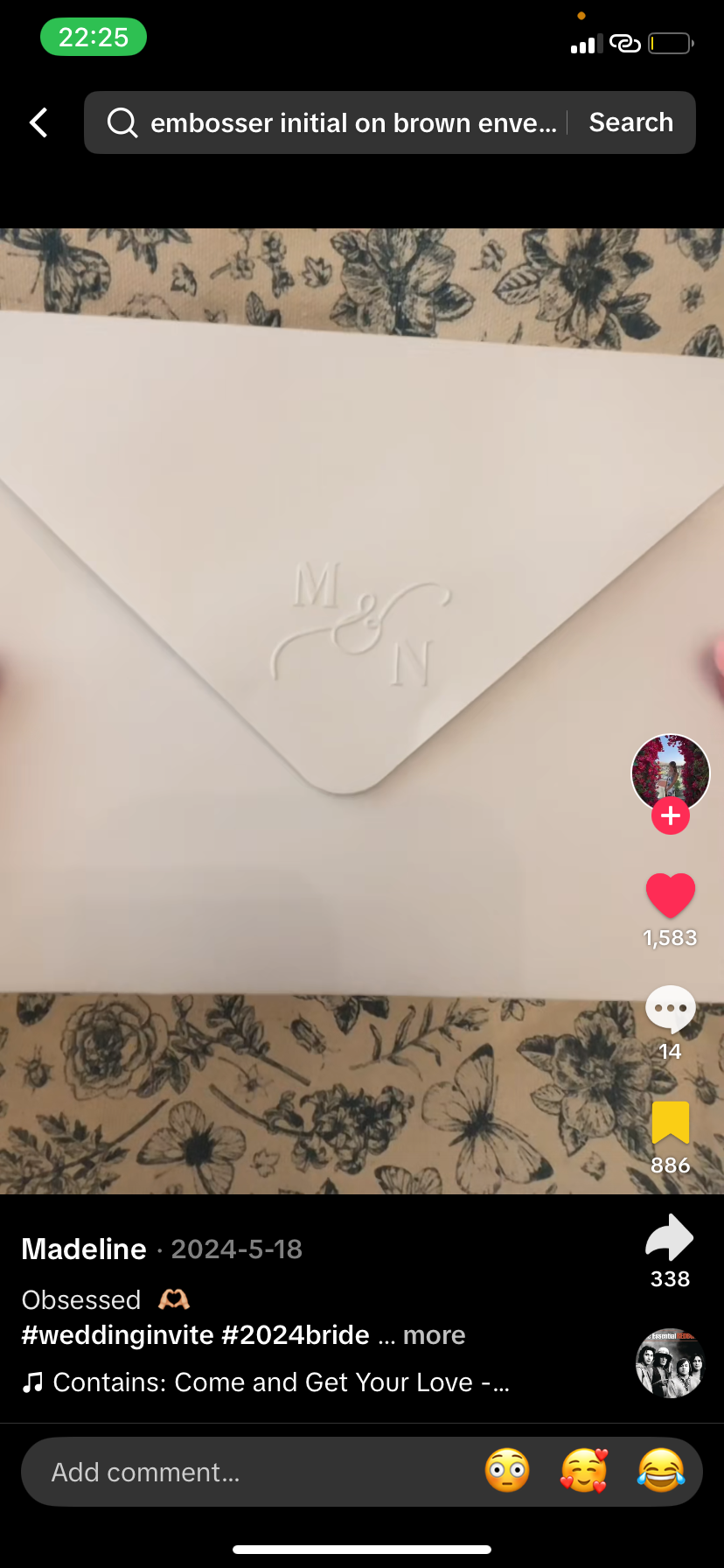
Looking for the font in this Tik Tok video
Looking for this font on this wedding envelope.  The video is from Tik Tok, creators tag is @madelinean. The creator hadn’t specified the name and I really want to use the ‘&’ in a canva design. The link to the Tik Tok is below. I will also attach a screen shot of it. I would like the font name or at least something as flamboyant and elegant as this.IMG_5600.thumb.png.430fc79b06fdb8c9e57f900796cb641a.png
Very difficult to run such a low-contrast image through font matching software.
I’m sorry, but even after redrawing the ampersand, I’ve had no luck IDing it.
This may be due to the fact that it appears to be a special character/alternate of the default ampersand (as indicated by the leading and trailing “tails”)—such alternate characters are rarely included in search databases.
A Google search on “wedding ampersand” will turn up thousands of options....